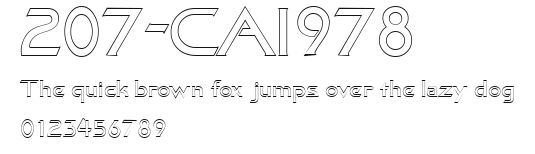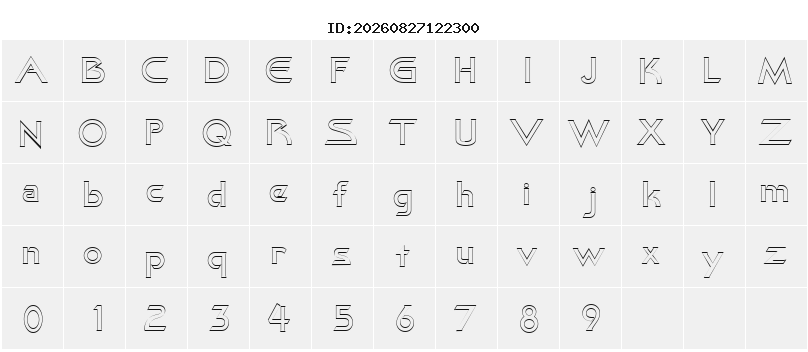
207-CAI978 Preview
• Font Name: 207-CAI978
• Full Font Name: 207-CAI978
• Version: Version 1.00 January 8, 1998, initial release
• Character Count: 239
About 207-CAI978.ttf
207-CAI978.ttf is a modern, elegant sans-serif font designed for ultimate readability and visual harmony. Perfect for branding, headlines, web design, and print materials.